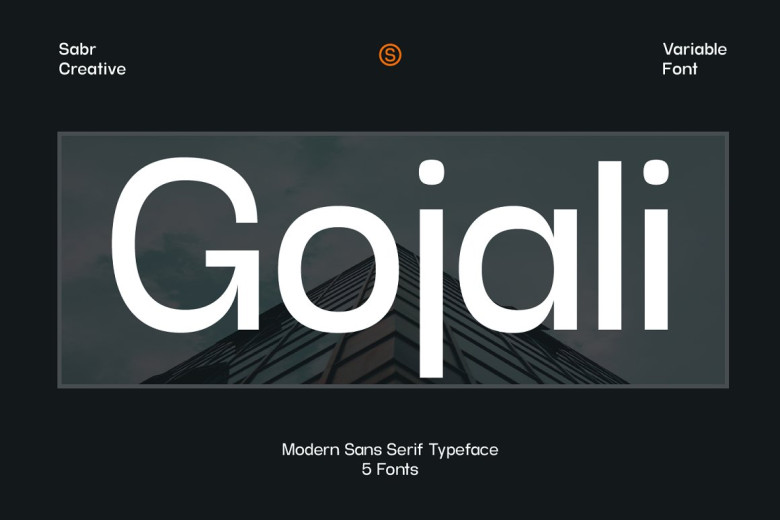
Gojali features a fresh geometric style with a humanistic touch. As part of the sans serif family, this typeface can be found everywhere from magazines, posters and websites to any number of uses beyond text-heavy content.
This font is very straightforward and supports Western, Central, and Eastern European languages.
Gojali Variable Sans Serif Font